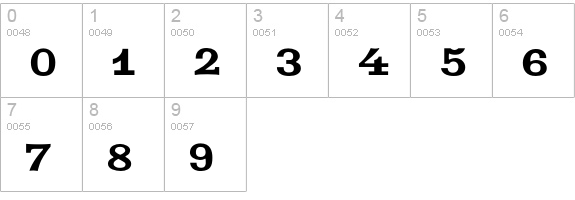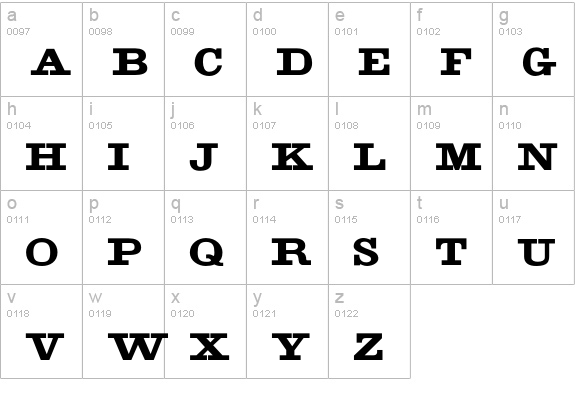
IndustrialPress Font Details
Introducing IndustrialPress, a remarkable font that effortlessly combines strength, professionalism, and versatility. With its bold and robust letterforms, this typeface exudes a sense of industrial prowess, making it the perfect choice for any project that requires a strong and impactful visual presence. IndustrialPress possesses a unique blend of sharp edges and sleek curves, lending it a distinct and commanding aesthetic. Its carefully crafted design ensures legibility and readability across various mediums, making it suitable for a wide range of applications, from bold headlines to eye-catching logos. What sets IndustrialPress apart is not only its exceptional design but also its availability as a free download. Yes, you heard it right – this extraordinary font is freely accessible to all at FontsMarket.com. This means that you can instantly elevate your design projects without breaking the bank. Whether you are a seasoned designer or a passionate enthusiast, IndustrialPress offers you the opportunity to effortlessly enhance your creations with a touch of industrial elegance. So, why wait? Download IndustrialPress today at FontsMarket.com and unlock a world of captivating possibilities for your designs.